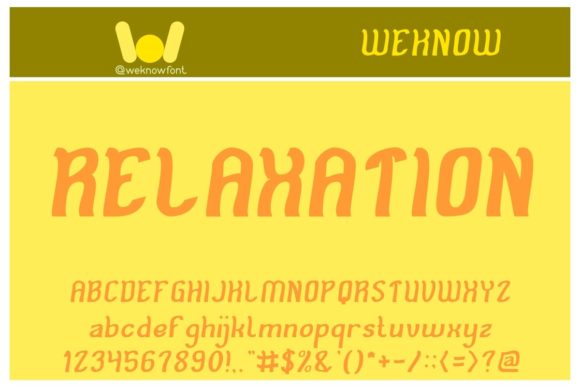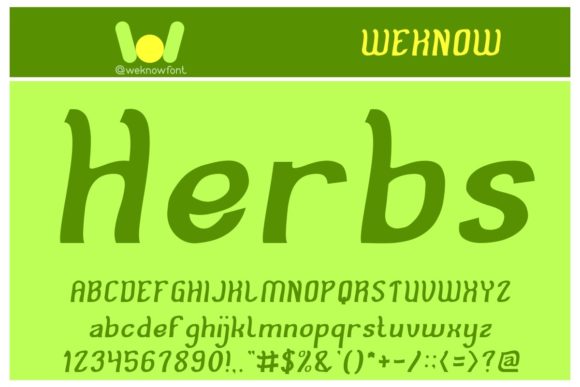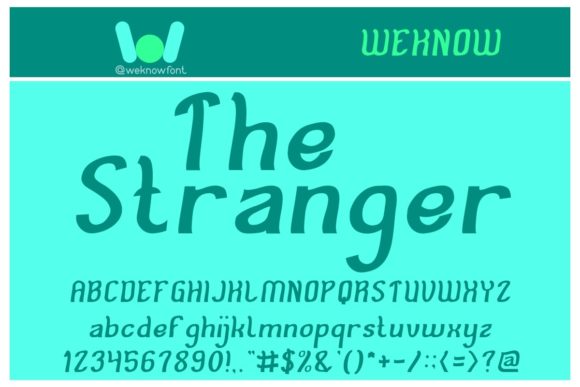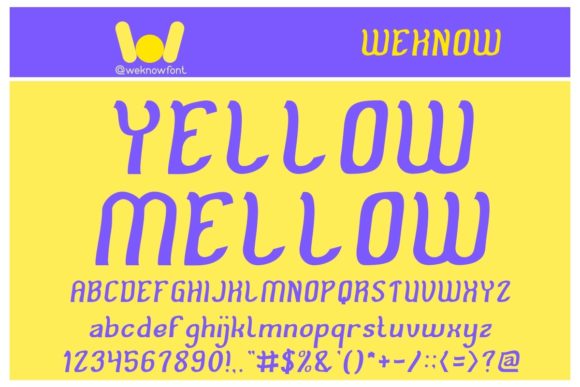
Introducing Cat Eyes Font: The Cool, Wavy, and Adaptable Display Font
Are you tired of using the same old fonts for your designs? Look no further! Cat Eyes Font is here to revolutionize the way you create. This cool, wavy, and adaptable display font is simple yet packs a strong visual effect that will instantly make your creation more appealing than any others.
What is Cat Eyes Font?
Cat Eyes Font is a unique and stylish display font that features wavy lines and curves, giving it a distinctive and eye-catching look. The font is designed to be highly adaptable, making it perfect for a wide range of design projects, from posters and flyers to logos and branding materials.
Key Features of Cat Eyes Font
• Cool and Wavy Design: The font features a unique wavy design that adds a touch of coolness to any design project.
• Adaptable: The font is highly adaptable and can be used for a wide range of design projects, from posters and flyers to logos and branding materials.
• Simple yet Effective: Despite its simplicity, the font has a strong visual effect that will instantly make your creation more appealing.
• Easily Readable: The font is designed to be easily readable, even at small sizes, making it perfect for use in a variety of design projects.
Why Choose Cat Eyes Font?
There are many reasons why Cat Eyes Font is the perfect choice for your design projects. Here are just a few:
• Stand Out from the Crowd: With its unique and stylish design, Cat Eyes Font is sure to make your design project stand out from the crowd.
• Versatile: The font is highly versatile and can be used for a wide range of design projects, from posters and flyers to logos and branding materials.
• High-Quality: The font is of high quality and features a clean and crisp design.
Design Ideas Using Cat Eyes Font
Cat Eyes Font is a versatile font that can be used for a wide range of design projects. Here are a few design ideas to get you started:
• Posters and Flyers: Use Cat Eyes Font to create eye-catching posters and flyers for events, promotions, and products.
• Logos and Branding Materials: Use the font to create unique and stylish logos and branding materials for businesses and organizations.
• Social Media Graphics: Use the font to create social media graphics, such as Facebook and Twitter headers, that will grab attention and stand out from the crowd.
• Signage and Displays: Use the font to create eye-catching signage and displays for businesses, events, and exhibitions.
Font Name Cat Eyes Font
Author weknow
Cat Eyes Font is a cool, wavy, and adaptable display font that is perfect for designers and crafters looking to add a touch of style and sophistication to their design projects. With its unique design, versatility, and ease of use, Cat Eyes Font is sure to become a favorite font for many designers. So why wait? Download Cat Eyes Font today and start creating stunning designs that will grab attention and leave a lasting impression!